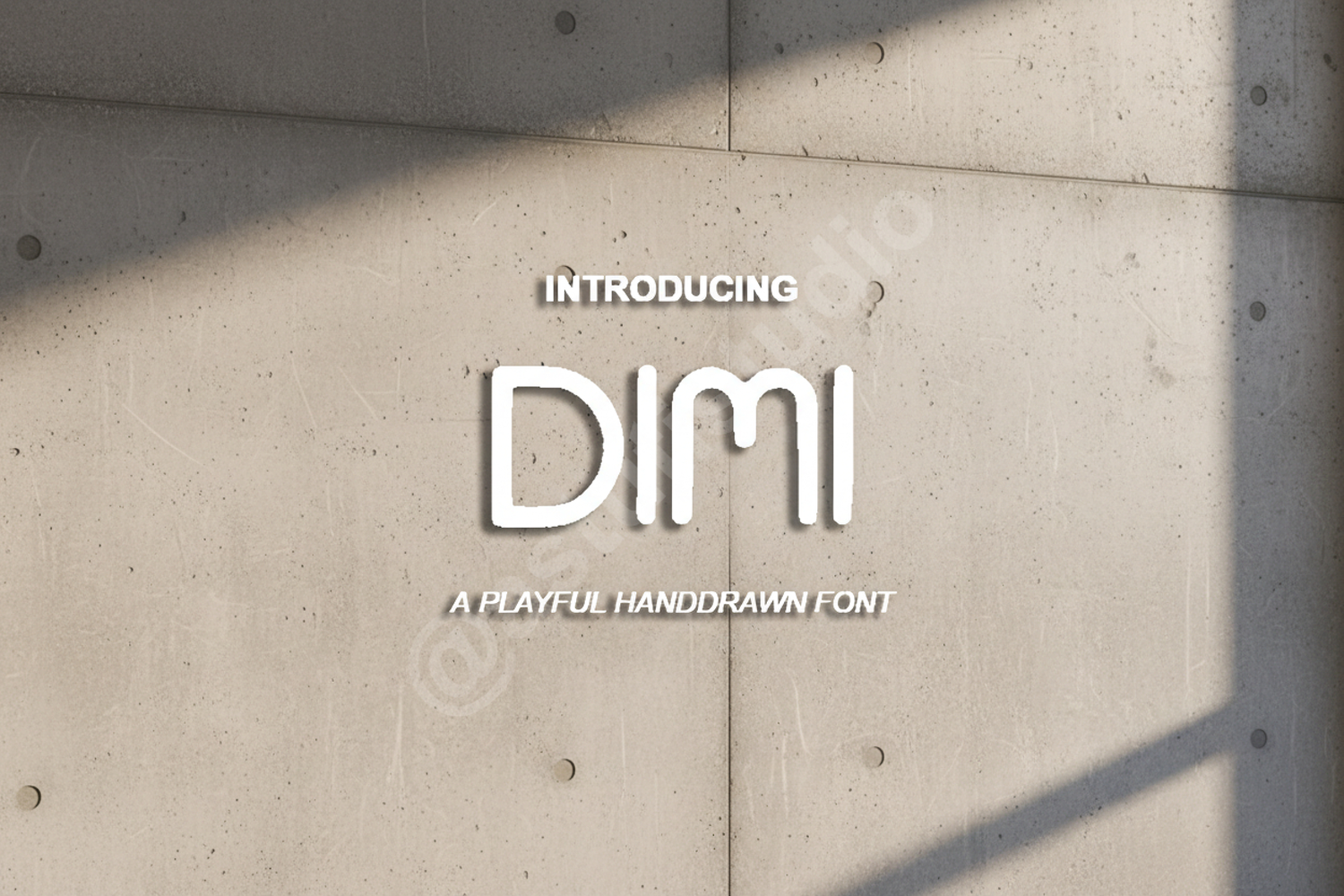
Dimi - Sophisticated Modern Serif Typeface
Dimi
Elevate your design projects with Dimi, a premium serif typeface that exudes sophistication and timeless elegance. Carefully crafted with clean lines and balanced proportions, Dimi offers a perfect blend of classic aesthetics and modern versatility, making it an essential addition to any professional designer's toolkit. Whether you are aiming for a minimalist look or a bold editorial statement, Dimi provides the clarity and style needed to stand out.
- Full Character Set (Uppercase and Lowercase)
- Comprehensive Numbers and Punctuation
- Extensive Multilingual Support
- Luxury Branding and Identity: Create a memorable and high-end brand presence for fashion or lifestyle companies.
- Editorial Design: Perfect for magazine layouts, striking headlines, and sophisticated body text.
- Wedding and Event Stationery: Add a touch of class to invitations, menus, and ceremony programs.
- Social Media Graphics: Stand out with elegant typography for quotes and promotional posts.
- Product Packaging: Enhance the shelf appeal of premium goods with clean and legible typography.